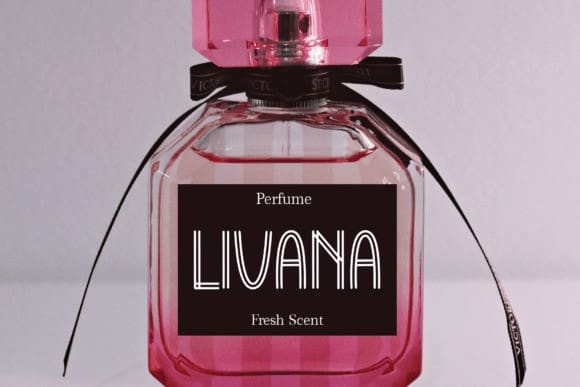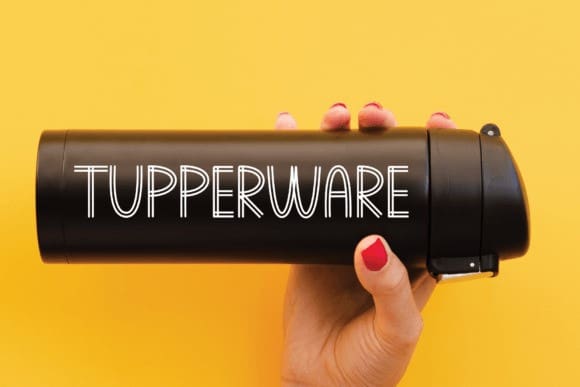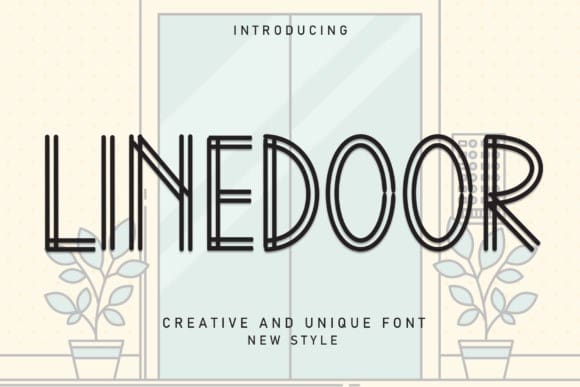
Linedoor Display Font
Linedoor Display Font is an incredibly cool and unique decorative font. This modern and bold vibe can easily apply to your favorite designs.